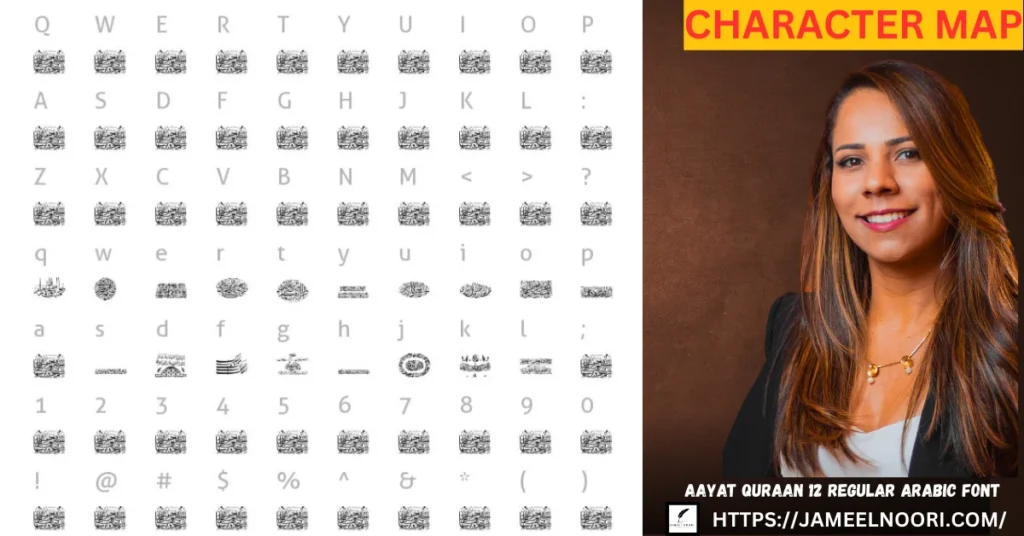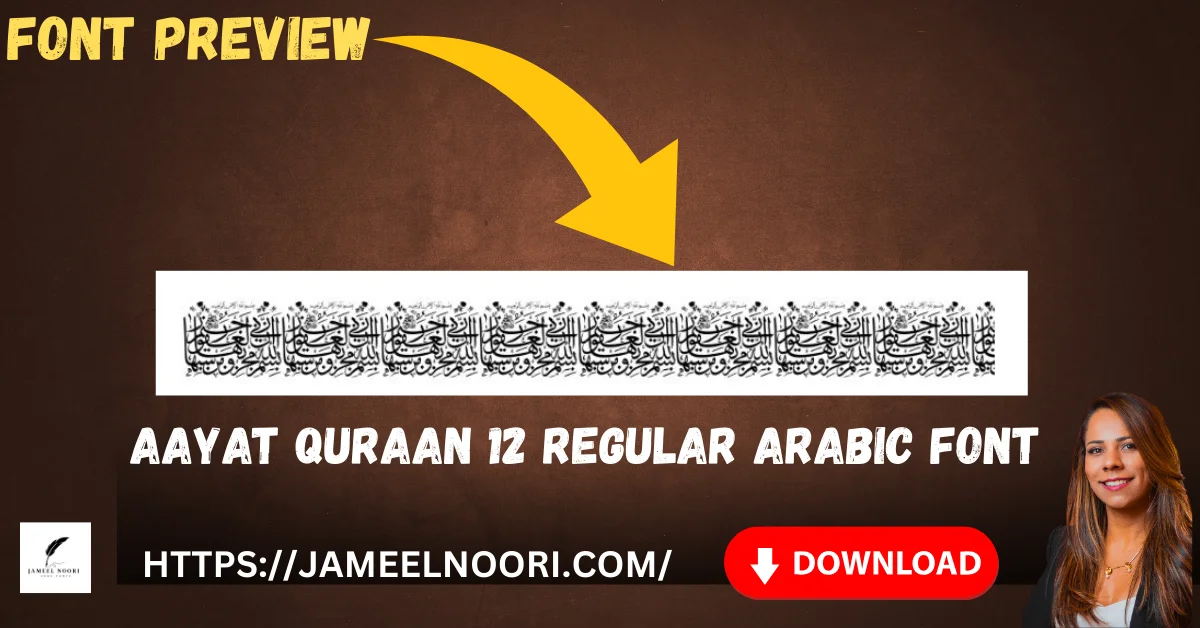
Introduction – Aayat Quraan 12 Regular Arabic Font Ko Pehle Jaaniye
Aayat Quraan 12 Regular Arabic Font is a beautiful and highly versatile TrueType font widely appreciated by designers, publishers, and Islamic scholars across Pakistan. This font is perfect for creating authentic Arabic text, Quranic verses, and other religious or educational content.
What is Aayat Quraan 12 Regular Arabic Font?
Aayat Quraan 12 Regular Arabic Font is specially designed to maintain the beauty and authenticity of Quranic calligraphy. It is suitable for printing, digital design, and social media graphics. The font supports a wide range of Arabic characters and ligatures, ensuring a smooth and professional appearance in every document.
Key Features of Aayat Quraan 12 Regular
- Elegant and readable calligraphy style – perfect for Quranic text
Why Choose Aayat Quraan 12 Regular Arabic Font?
Using Aayat Quraan 12 Regular Arabic Font ensures that your designs maintain authenticity and elegance. It is preferred for religious books, educational materials, posters, and online publications.
Benefits:
- Professional and visually appealing calligraphy
- High readability, even in smaller font sizes
- Excellent for creative projects and digital media
Yes, it can be paired with Jameel Noori Urdu fonts for bilingual projects.